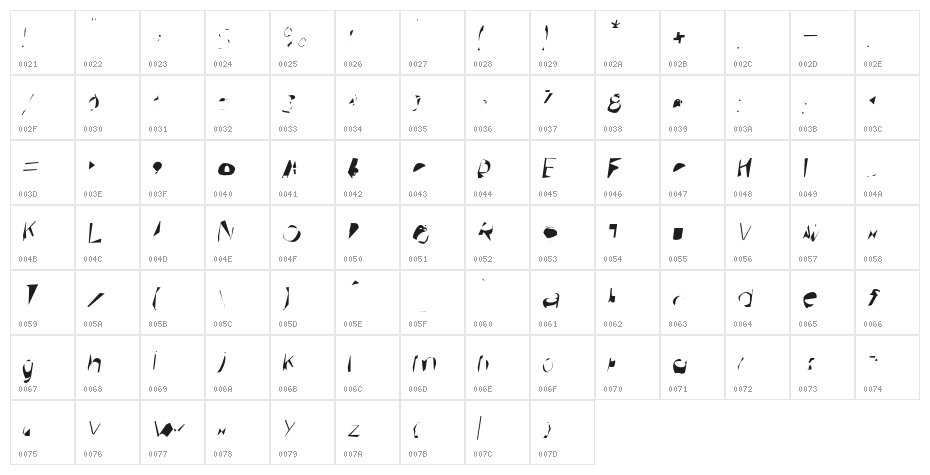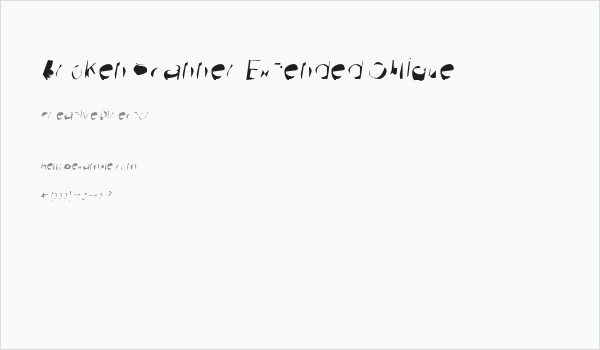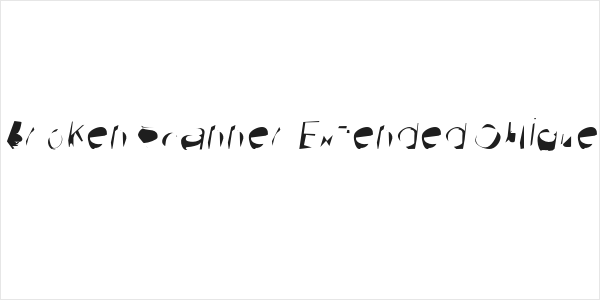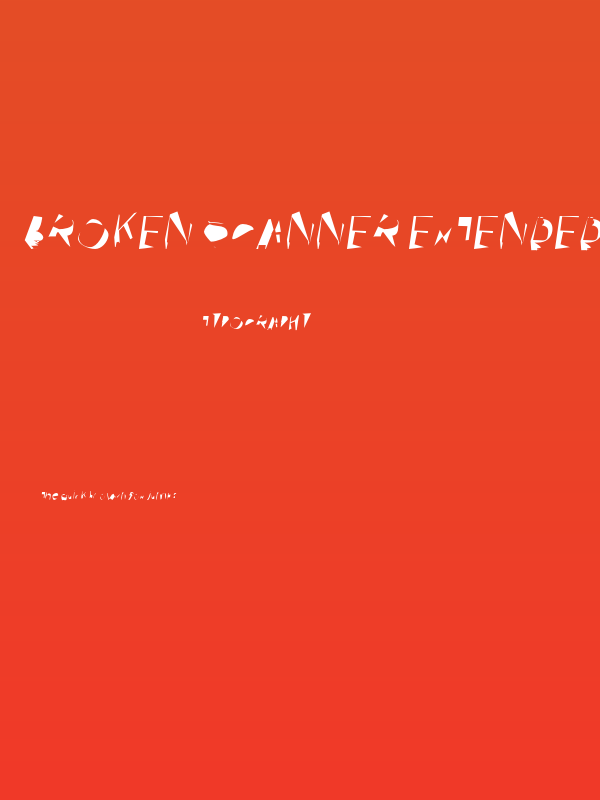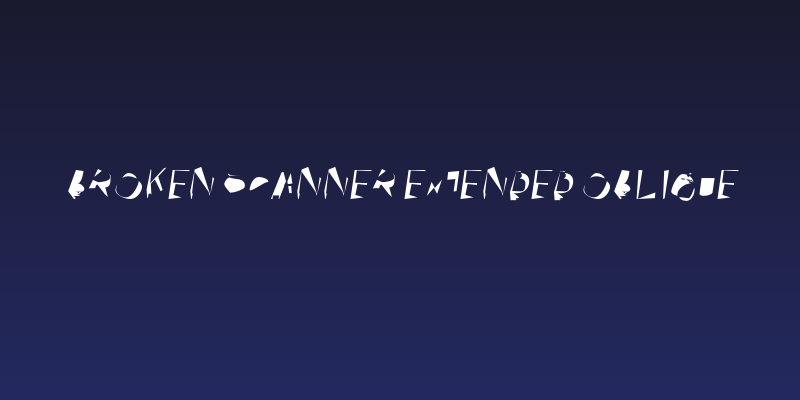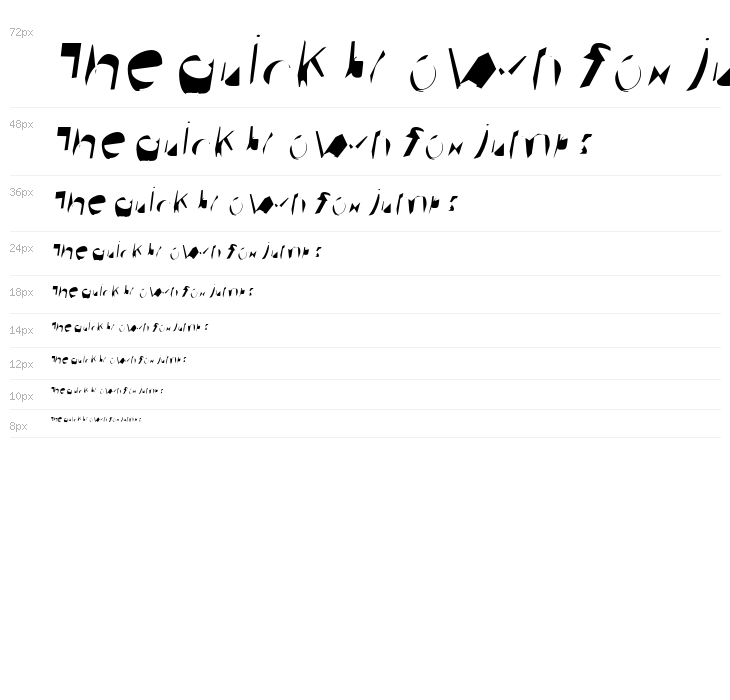
Broken Scanner Extended Oblique Font
Broken Scanner Extended Oblique Description
This font exhibits a highly distorted and fragmented appearance, reminiscent of a glitch or malfunctioning digital display. The characters are irregularly shaped, with parts missing or exaggerated, creating a chaotic and dynamic visual effect. The strokes vary in thickness, contributing to the overall disjointed look. Despite its fragmented nature, the font maintains a sense of movement and energy, with an oblique orientation that adds to its unconventional style. This font is not suitable for readability but serves as an artistic statement.
| Use Case | Logos, Artistic designs |
| Proposed Projects | Ideal for experimental design projects, digital art, or any creative work that embraces chaos and disruption. |